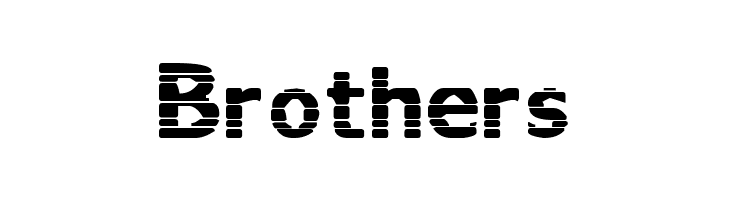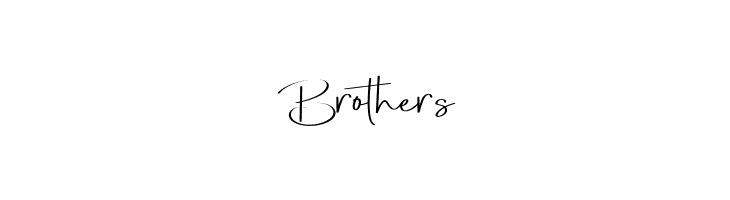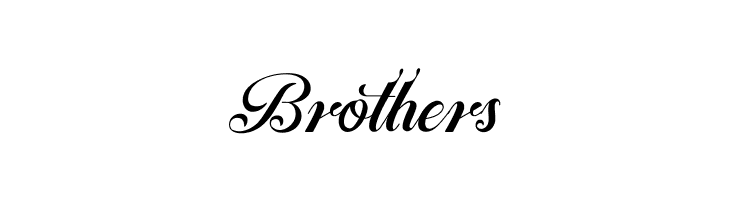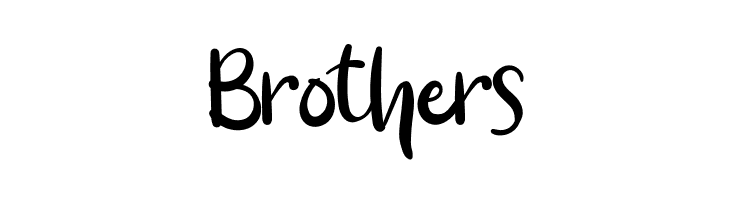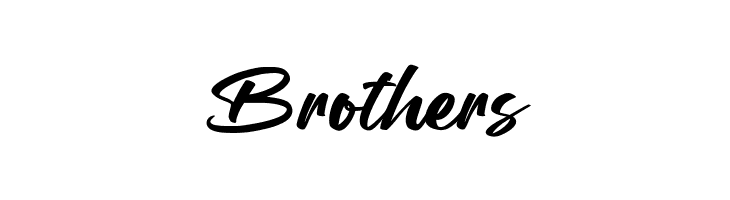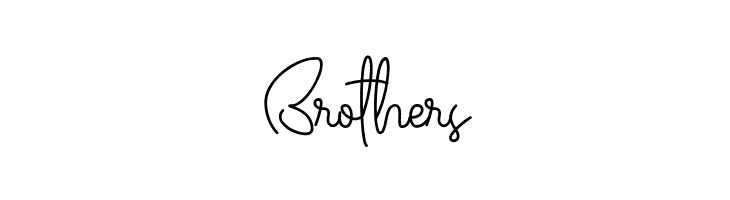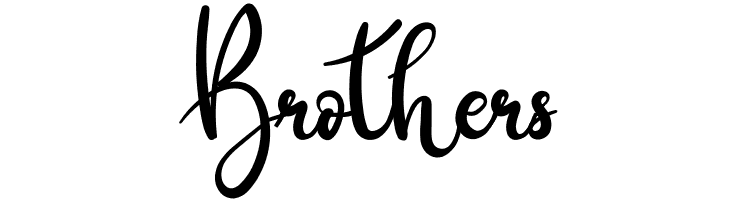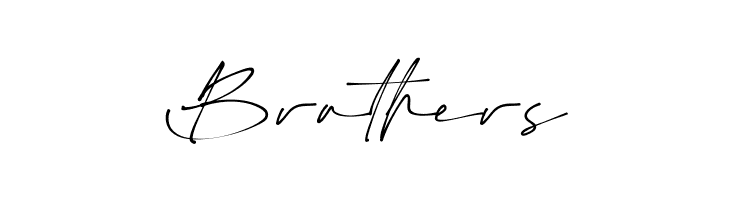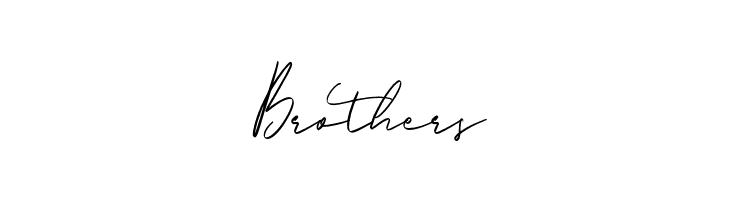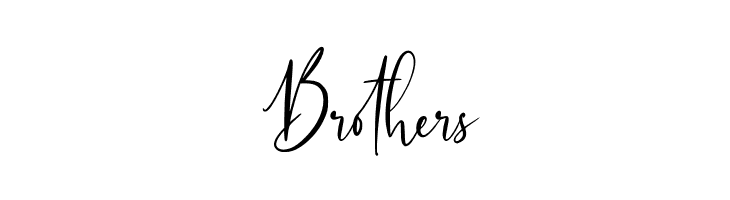
• Balkinsat Regular
A geometric, modern font with a clean and structured appearance.
• BALKON
A bold, modern font with a unique striped pattern across all characters.
• BALLAD
• BALLAD Italic
A sleek, modern italic font with smooth curves and clean lines.
• Ballada
A lively and expressive handwritten font with playful flourishes.
• Ballade UNZ1 Alt Bold
A bold, blackletter-style font with sharp, angular lines and ornate detailing.
• Ballade UNZ1 Bold
A bold, blackletter-style font with intricate, Gothic-inspired design.
• Ballado
A sleek, modern font with geometric lines and rounded edges.
• BalladofaThinMan-Regular
A playful, handwritten font with tall, narrow letters and uneven strokes.
• BallanoRegular
A cursive, calligraphic font with elegant, flowing strokes and a modern touch.
• Ballarat
An elegant, flowing script font with a natural handwriting style.
• Ballarat
A modern, elegant handwritten script with fluid, connected characters.
• Ballast
A fluid and elegant handwritten script font with a personal touch.
• Ballbase
A bold, condensed font with a strong vertical emphasis, perfect for impactful headlines.
• Ballbase Backslanted
A dynamic, backslanted font with tall, narrow characters and consistent stroke thickness.
• Ballbase Italic
A dynamic, italic font with a sleek, modern appearance and bold strokes.
• Ballbase MegaUltraBackslanted
A bold, backslanted font with high contrast and tight spacing, perfect for dynamic designs.
• Ballbase MegaUltraItalic
A bold, italic font with a dynamic slant and tight spacing, perfect for modern designs.
• Ballbase UltraBackslanted
A dynamic, ultra-backslanted font with elongated, narrow characters.
• Ballbase UltraItalic
A bold, ultra-italicized font with a dynamic and futuristic style.
• ballbearings
A playful, ball-bearing inspired decorative font with bold, rounded characters.